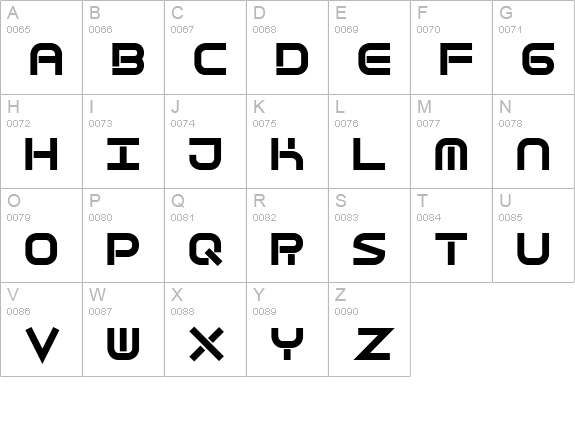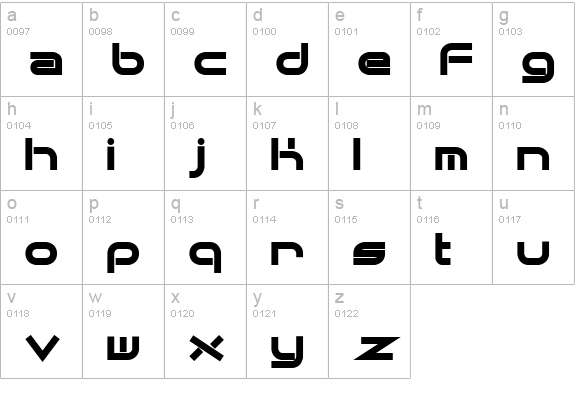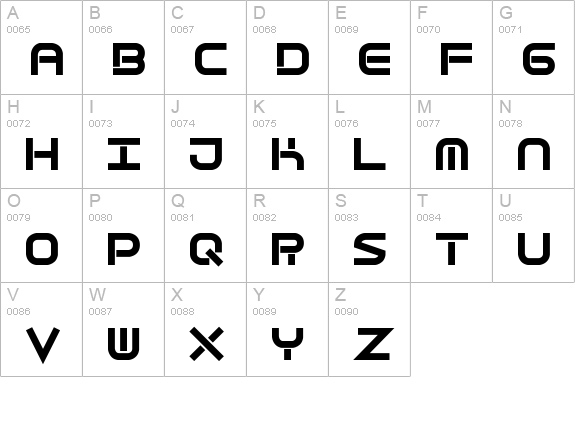
Quantum Flat BRK font is a stunning typeface that combines modernity and elegance in a unique way. It portrays a sense of sleekness and sophistication, making it perfect for various design projects. This font features a clean and minimalistic design, with sharp edges and smooth curves that exude a sense of precision and professionalism. Its geometric shapes and perfectly balanced letterforms give it a contemporary look that is both visually appealing and highly readable. One of the standout features of Quantum Flat BRK font is that it is available for free. Yes, you read that right! This exceptional font can be freely downloaded at FontsMarket.com, making it accessible to designers and enthusiasts alike. Whether you are working on a personal project or a commercial endeavor, having access to a high-quality font like Quantum Flat BRK can greatly enhance your designs. With its versatility and wide range of applications, Quantum Flat BRK font is ideal for various design projects, such as logos, branding, headlines, posters, websites, and more. It adds a touch of sophistication and modernity to any design, effortlessly capturing the attention of viewers and leaving a lasting impression. Whether you are a professional designer or a beginner experimenting with typography, Quantum Flat BRK font offers you endless possibilities to explore and create. Its sleek and contemporary style will elevate your designs to new heights, making them stand out from the crowd. So why wait? Head over to FontsMarket.com and download Quantum Flat BRK font for free. Unleash your creativity and let this exceptional font take your designs to the next level.